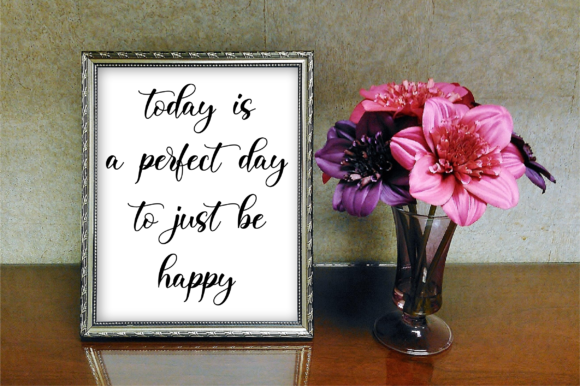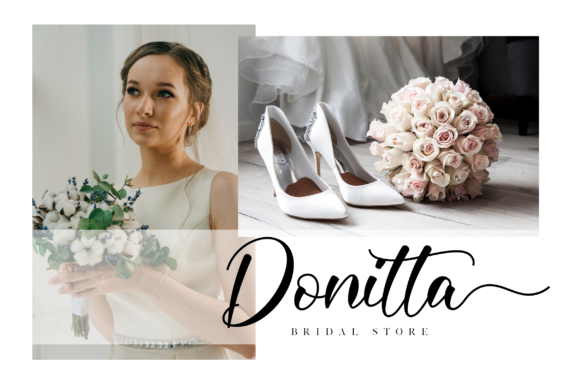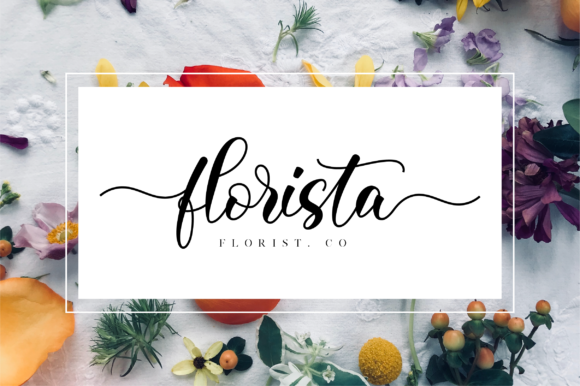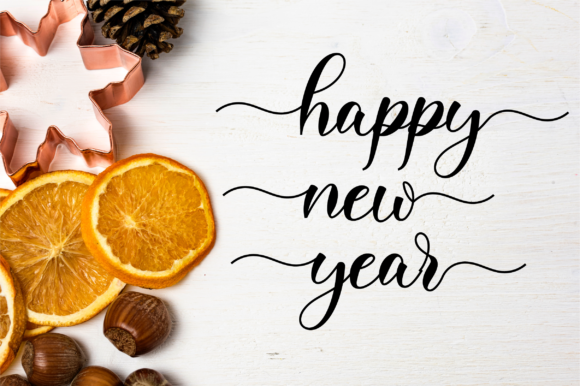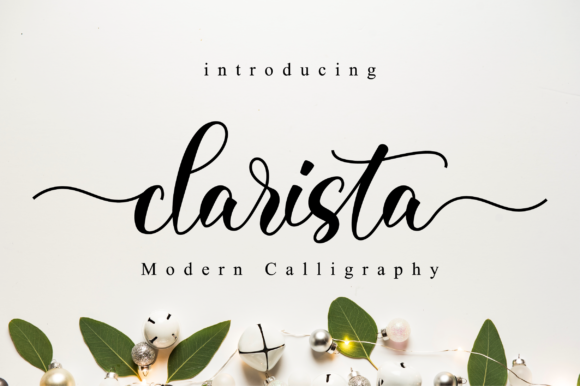
Introducing Clarista Script Font: Elevate Your Designs with Elegance and Sophistication
Are you tired of using the same old fonts in your design projects? Do you want to add a touch of elegance and sophistication to your creations? Look no further than Clarista Script Font, a stunning script that will turn any design project into an authentic piece of art. In this article, we’ll dive into the world of Clarista Script Font, exploring its features, benefits, and uses, and why it’s a must-have for designers and crafters alike.
What is Clarista Script Font?
Clarista Script Font is a beautiful, hand-crafted script font that exudes elegance and refinement. Its flowing lines, intricate details, and classic charm make it perfect for a wide range of design projects, from wedding invitations and branding materials to packaging and digital media. With its unique and distinctive style, Clarista Script Font is sure to make your designs stand out from the crowd.
Features of Clarista Script Font
So, what makes Clarista Script Font so special? Here are just a few of its key features:
• Unique and elegant design: Clarista Script Font boasts a distinctive and sophisticated design that’s sure to impress.
• Hand-crafted with love: Each letter has been carefully crafted by hand to ensure a personal and authentic feel.
• Perfect for creative projects: Whether you’re working on a wedding invitation, logo, or packaging design, Clarista Script Font is the perfect choice.
• Easy to use: With its clear and legible design, Clarista Script Font is easy to read and use in a variety of contexts.
Benefits of Using Clarista Script Font
So, why should you choose Clarista Script Font for your next design project? Here are just a few of the benefits you can expect:
• Adds elegance and sophistication: Clarista Script Font instantly elevates your designs, adding a touch of refinement and luxury.
• Stand out from the crowd: With its unique and distinctive style, Clarista Script Font helps your designs stand out in a crowded marketplace.
• Perfect for branding: Clarista Script Font is ideal for creating a strong and memorable brand identity.
• Versatile and flexible: Use Clarista Script Font in a variety of contexts, from digital media to print materials.
Uses of Clarista Script Font
So, what can you use Clarista Script Font for? The possibilities are endless! Here are a few ideas to get you started:
• Wedding invitations and stationery: Clarista Script Font is perfect for creating beautiful and elegant wedding invitations and stationery.
• Branding and packaging: Use Clarista Script Font to create a strong and memorable brand identity that stands out on packaging and marketing materials.
• Digital media: Clarista Script Font is ideal for use in digital media, including social media graphics, blog headers, and website designs.
• Art and craft projects: Clarista Script Font is a great choice for art and craft projects, including handmade cards, scrapbooking, and other paper crafts.
In conclusion, Clarista Script Font is a stunning script font that will elevate your designs to new heights. With its unique and elegant design, hand-crafted with love, and versatile uses, Clarista Script Font is a must-have for designers and crafters alike. Whether you’re working on a wedding invitation, branding materials, or digital media, Clarista Script Font is the perfect choice. So why wait? Download Clarista Script Font today and start creating beautiful, authentic pieces of art that will leave a lasting impression.